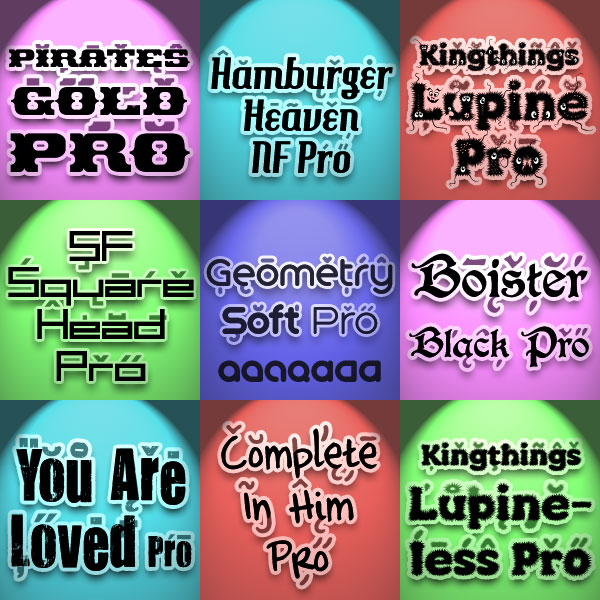
CheapProFonts Newsletter 10-01 These fonts were reworked during the second half of 2009, but as I presented the Geometry Soft Pro family in a separate newsletter I thought I'd wait a little while to present the rest of the fonts from that period. Here they are! ;)
In this news release I present 9 fonts:
- 2 from Kimberly Geswein
- 2 (related) from Kevin King
- 1 from Derek Vogelpohl
- 1 from Nick Curtis
- 1 from Levente Halmos
- 1 from "newcomer" Paul Lloyd
- 1 large family from myself! ;)
Paul Lloyd approached me some time ago and offered his free fonts for reworking, and I gladly took him onboard. He has many lovely "old" fonts, but with their very limited character set they take some time to rework to the quality I want the CheapProFonts fonts to have. The first finished one is the swashbuckling Boister Black Pro - and I finished it just in time to use it on my own christmas e-card. More to come, indeed! :)
Pirates Gold Pro
Pirates Gold Pro by Levente Halmos
374 glyphs!
(68 in original)
Hamburger Heaven NF Pro
Hamburger Heaven NF Pro by Nick Curtis
376 glyphs!
(227 in original)
Kingthings Lupine Pro
Kingthings Lupine Pro by Kevin King
370 glyphs!
(92 in original)
SF Square Head Pro
SF Square Head Pro by Derek Vogelpohl
378 glyphs!
(102 in original)
Geometry Soft Pro Bold N
Geometry Soft Pro Bold N by Roger S. Nelsson
Boister Black Pro
Boister Black Pro by Paul Lloyd
(78 in original)
You Are Loved Pro
You Are Loved Pro by Kimberly Geswein
(124 in original)
Complete In Him Pro
Complete In Him Pro by Kimberly Geswein
(96 in original)
Kingthings Lupineless Pro
Kingthings Lupineless Pro by Kevin King
370 glyphs!
(92 in original)
Geometry Soft Pro Light
Geometry Soft Pro Light  by Roger S. Nelsson
Geometry Soft Pro Regular
Geometry Soft Pro Regular  by Roger S. Nelsson
Geometry Soft Pro Bold
Geometry Soft Pro Bold  by Roger S. Nelsson